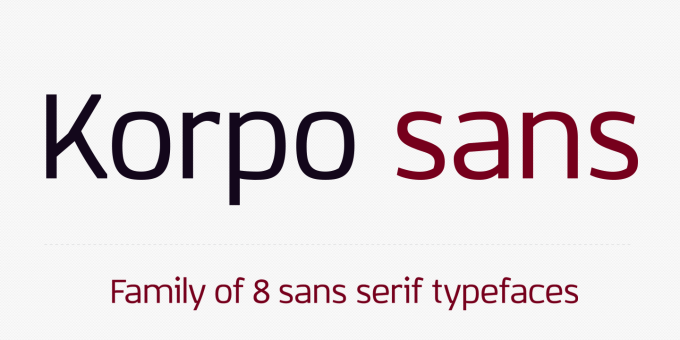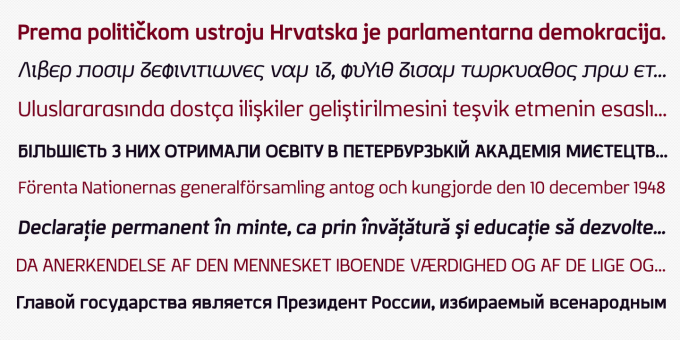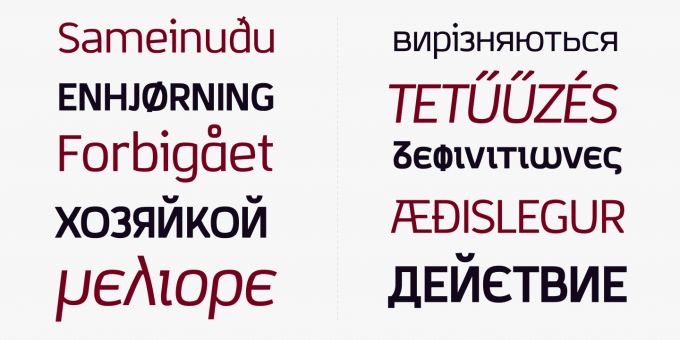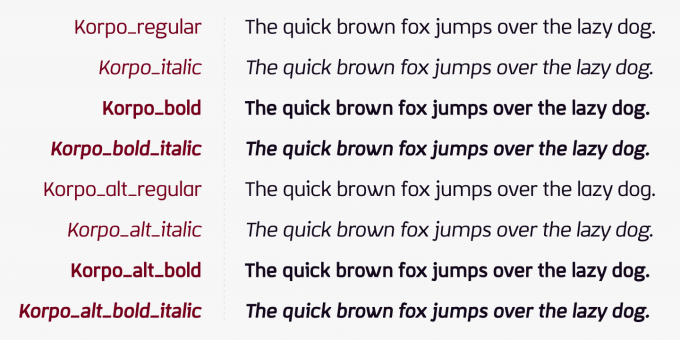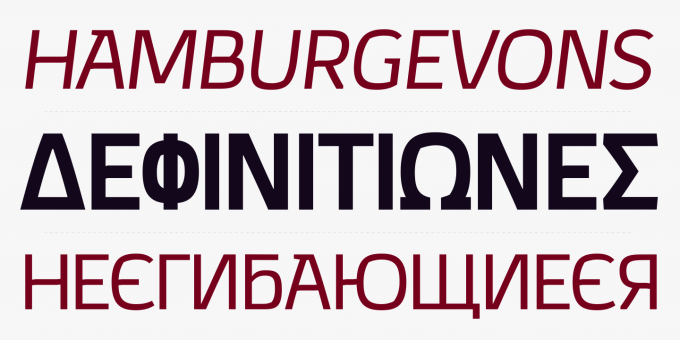
Korpo_sans
Korpo_sans, designed by Mateusz Machalski, is a sans type family with a friendly feel. This type comprises 8 variants with two different “a” ang “g” glyph per style. Broken details were made intentionally for better readability.The low contrast and high x height is perfect for longer text and Headlines Korpo_sans support over 40 languages with cyrillic and greek version.